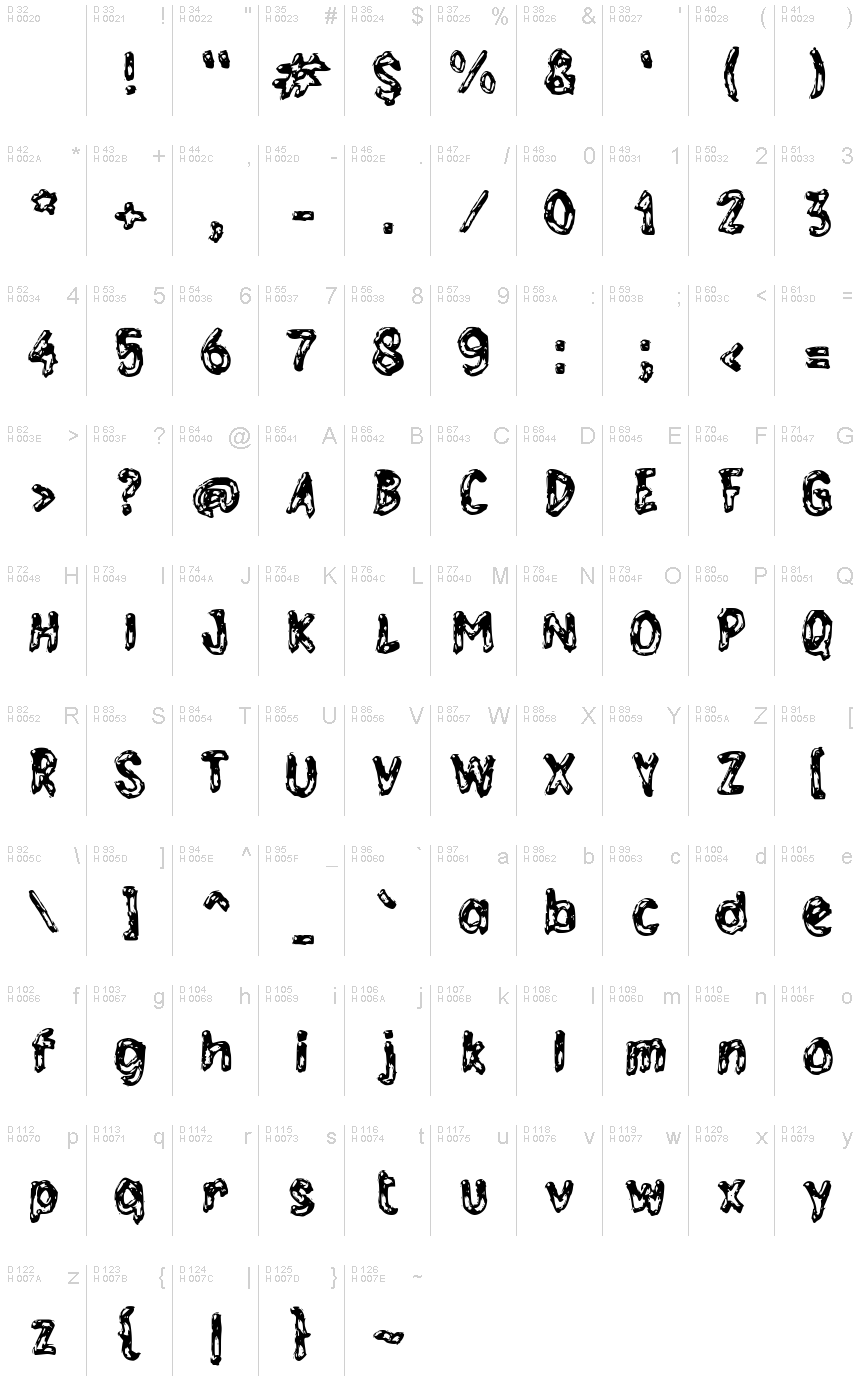
FLEURANT
Fleurant, a dynamic and captivating graffiti-inspired font crafted by designer wep, exudes raw energy and rebellious charm. Its bold, brush-like strokes command attention, while the organic, hand-drawn aesthetic evokes a sense of authenticity and individuality. This font's striking visual appeal effortlessly bridges the gap between contemporary and edgy, making it a versatile choice for a wide range of design projects.
Fleurant's bold, expressive lines and distinctive character shapes lend themselves seamlessly to bold typographic statements, eye-catching branding, and dynamic editorial layouts. Its versatility shines through, whether used for impactful headlines, gritty urban aesthetics, or attention-grabbing packaging designs. Designers seeking to infuse their projects with a sense of raw, unapologetic style will find Fleurant a captivating and valuable addition to their creative toolkit.